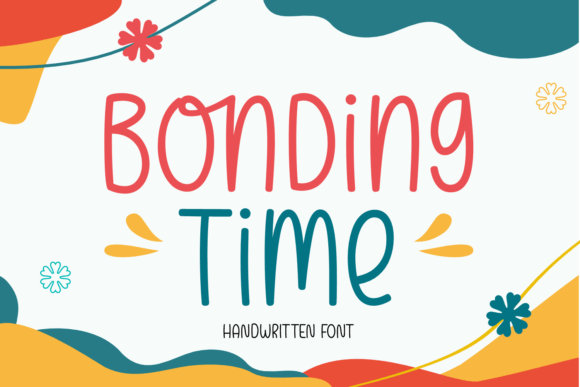
Bonding Time Font: A Playful Handwritten Font for Creative Expression
In the world of typography, fonts play a crucial role in conveying emotions, setting tones, and creating lasting impressions. Among the myriad of fonts available, “Bonding Time” stands out as a unique and captivating handwritten font that embodies warmth, creativity, and charm. Designed to add a touch of whimsy and personality to any design project, “Bonding Time” has become a popular choice among designers, artists, and creative enthusiasts.
What is Bonding Time Font?
“Bonding Time” is a playful handwritten font characterized by its thin letterforms, fluid strokes, and charming aesthetic. This font is the epitome of creativity and expression, making it perfect for a wide range of design projects, from personal endeavors to professional branding. The font’s unique style and versatility have made it a favorite among those looking to add a personal touch to their work.
Key Features of Bonding Time Font
- Playful Aesthetic: “Bonding Time” boasts a playful and whimsical design that instantly captures attention and evokes a sense of joy.
- Handwritten Style: The font’s handwritten nature gives it a personal and relatable feel, making it suitable for projects that require a human touch.
- Thin Letterforms: The font’s thin letterforms contribute to its elegance and sophistication, while also ensuring excellent readability.
- Versatility: “Bonding Time” can be used across various design projects, including branding, events, social media graphics, and personal crafts.
Exploring the Uses of Bonding Time Font
The versatility of “Bonding Time” makes it an excellent choice for a multitude of design applications. Here are some popular uses of this delightful font:
Personal Projects
For personal projects, such as scrapbooking, journaling, or crafting, “Bonding Time” adds a touch of personality and creativity. Its playful aesthetic and charming letterforms make it perfect for expressing oneself and creating unique, handmade pieces.
Branding and Marketing
In the realm of branding and marketing, “Bonding Time” can help businesses establish a friendly and approachable image. Its whimsical design and elegant letterforms make it suitable for logos, packaging, and promotional materials, especially for brands that want to convey a sense of warmth and connection.
Events and Invitations
“Bonding Time” is an excellent choice for event invitations, such as weddings, baby showers, and birthday parties. Its playful and charming aesthetic sets the tone for a joyful and memorable celebration, making it perfect for creating eye-catching and heartwarming invitations.
Social Media Graphics
In the digital age, social media graphics have become an essential part of online communication. “Bonding Time” can be used to create engaging and visually appealing graphics for social media platforms, such as Instagram, Facebook, and Twitter. Its playful design and elegant letterforms make it perfect for creating eye-catching posts, stories, and captions.
The Benefits of Using Bonding Time Font
Using “Bonding Time” in design projects offers several benefits, including:
Emotional Connection
The font’s playful and charming aesthetic helps create an emotional connection with the viewer, making it perfect for projects that require a personal touch.
Creativity and Expression
“Bonding Time” encourages creativity and expression, allowing designers to add a unique and personal touch to their work.
Versatility
The font’s versatility makes it suitable for a wide range of design projects, from personal endeavors to professional branding.
Readability
The font’s thin letterforms and elegant design ensure excellent readability, making it perfect for both digital and print applications.
Tips for Using Bonding Time Font
To make the most of “Bonding Time,” consider the following tips:
Pair with Complementary Fonts
Pair “Bonding Time” with complementary fonts to create visual interest and hierarchy in your design.
Experiment with Colors
Experiment with different colors to find the perfect combination that complements the font’s playful and charming aesthetic.
Use for Headings and Titles
Use “Bonding Time” for headings and titles to add a touch of personality and creativity to your design.
Keep it Simple
Keep your design simple and clean to ensure that the font’s playful aesthetic is not overwhelmed.
In conclusion, “Bonding Time” is a playful handwritten font that radiates warmth, creativity, and charm. Its unique style, versatility, and emotional connection make it an excellent choice for a wide range of design projects. Whether used for personal projects, branding, events, or social media, “Bonding Time” invites viewers to embrace creativity, connection, and the joy of shared experiences.